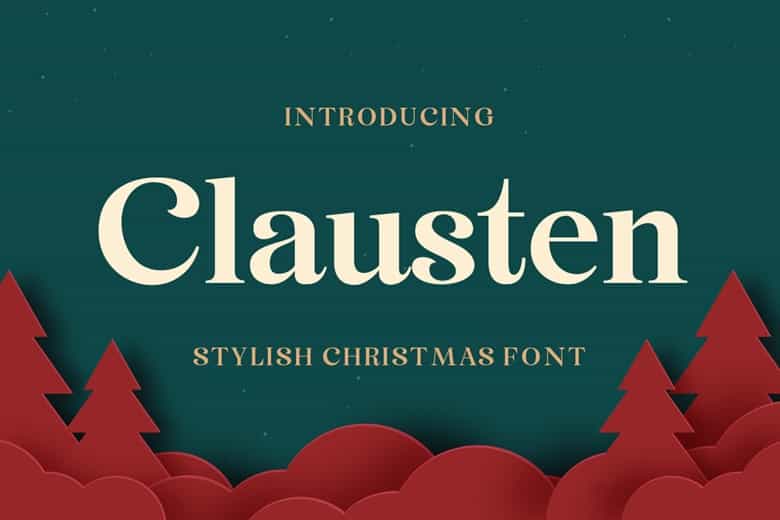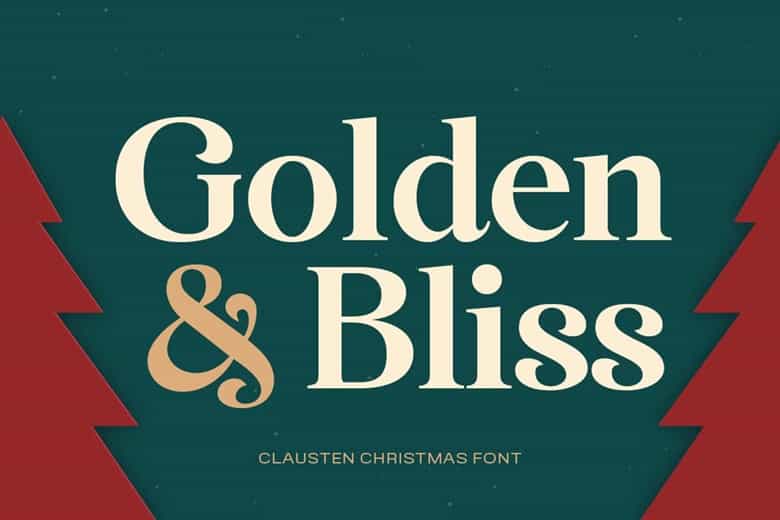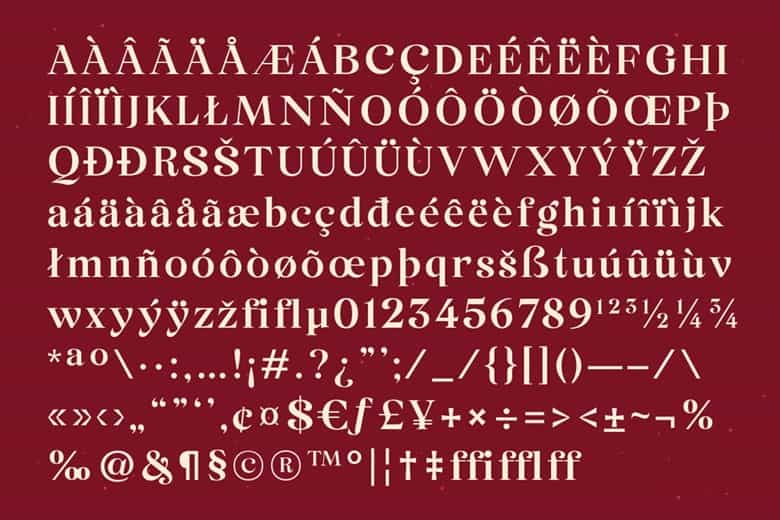
Clausten is a new display serif font that looks elegant and stylish, suitable for use in today’s world. It has elegant shapes and a classical look that will help you design and create wonderful holiday cards, invitations, seasonal logos, and other prints.